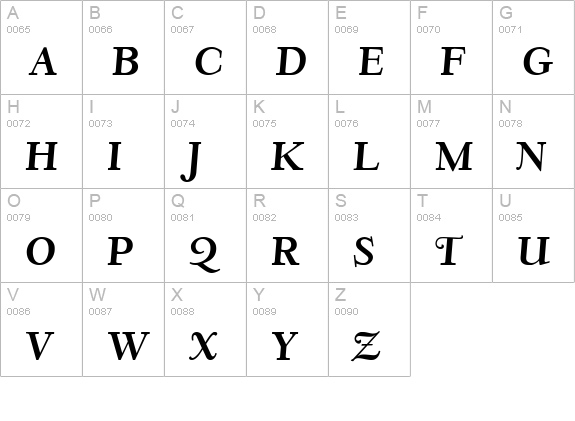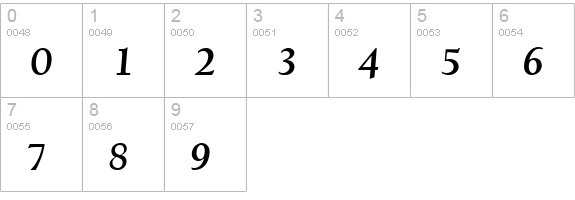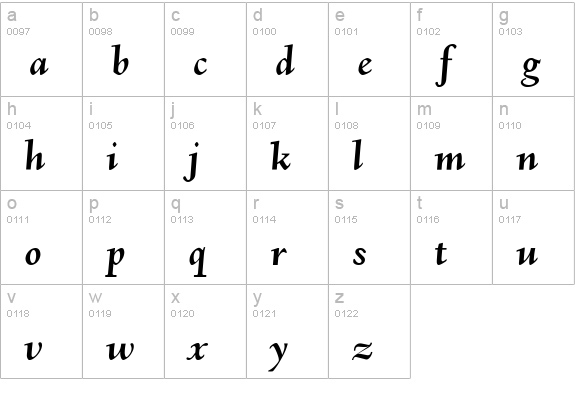
Deepdene Bold Italic Font Details
Deepdene Bold Italic is a strong, high-contrast, italic variant in the Deepdene typeface family \xE2\x80\x94 well suited to headlines, attention-grabbing titles, and strong calls-to-action.
Deepdene Bold Italic is a striking and elegant font that exudes a sense of sophistication and modernity. Its bold and italicized design adds a touch of flair and personality to any text, making it perfect for titles, headlines, and other prominent typography. The sleek curves and sharp angles of Deepdene Bold Italic create a sense of movement and energy, making it a versatile choice for a wide range of design projects. The best part about Deepdene Bold Italic is that it is available for free download at FontsMarket.com. This means that you can easily access this stylish font and incorporate it into your designs without any hassle or cost. Whether you're working on a professional project or a personal creative endeavor, Deepdene Bold Italic is sure to make a bold statement and elevate your typography game. Download it today and unleash the power of this dynamic and eye-catching font!